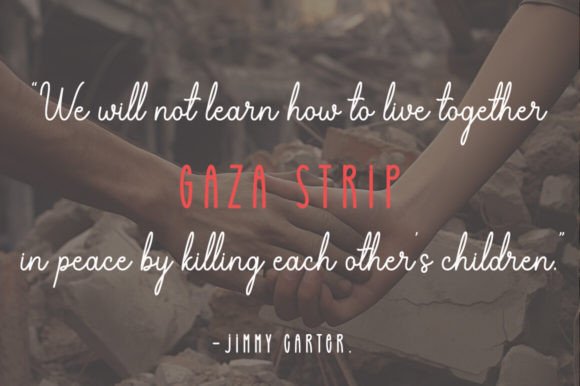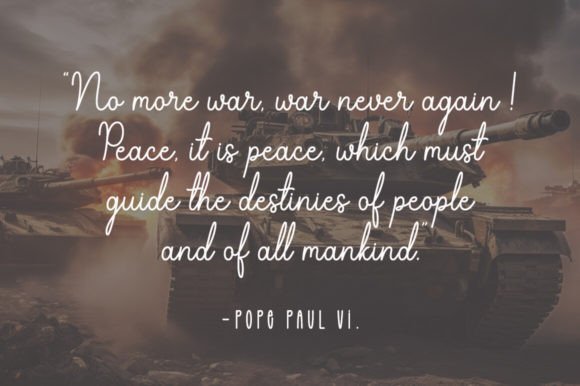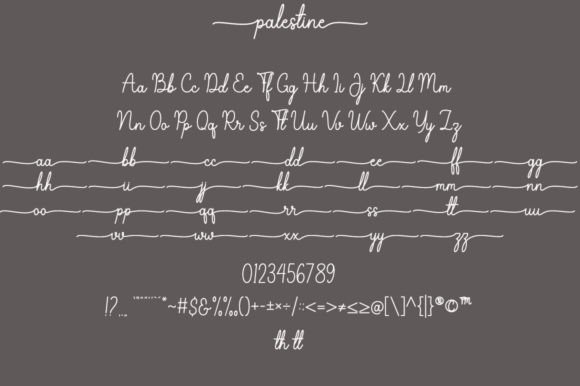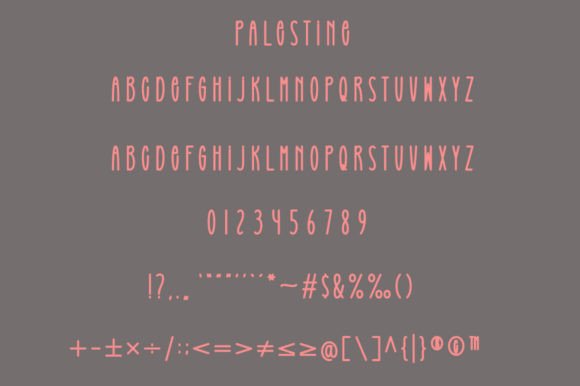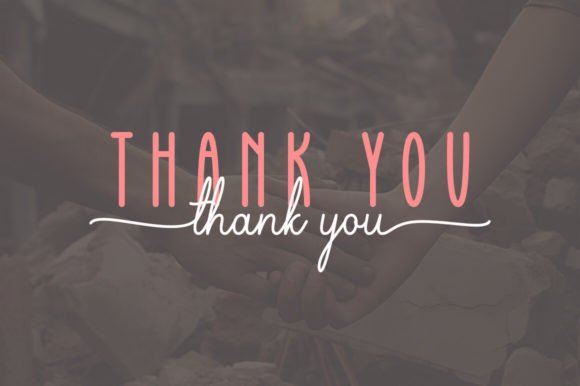
Introduction to Palestine Duo Font
Palestine duo is a lovely and delicate duo font (sans serif and script).
Its distinct and refined letters make this font a masterpiece Fall in love with its incredibly versatile style and use it to create spectacular designs.
Key Features of Palestine Duo Font
Why Choose Palestine Duo Font?
Palestine Duo Font offers exceptional quality and versatility, making it a valuable addition to your design toolkit. Whether you’re creating for personal projects or commercial use, Palestine Duo Font delivers professional results.